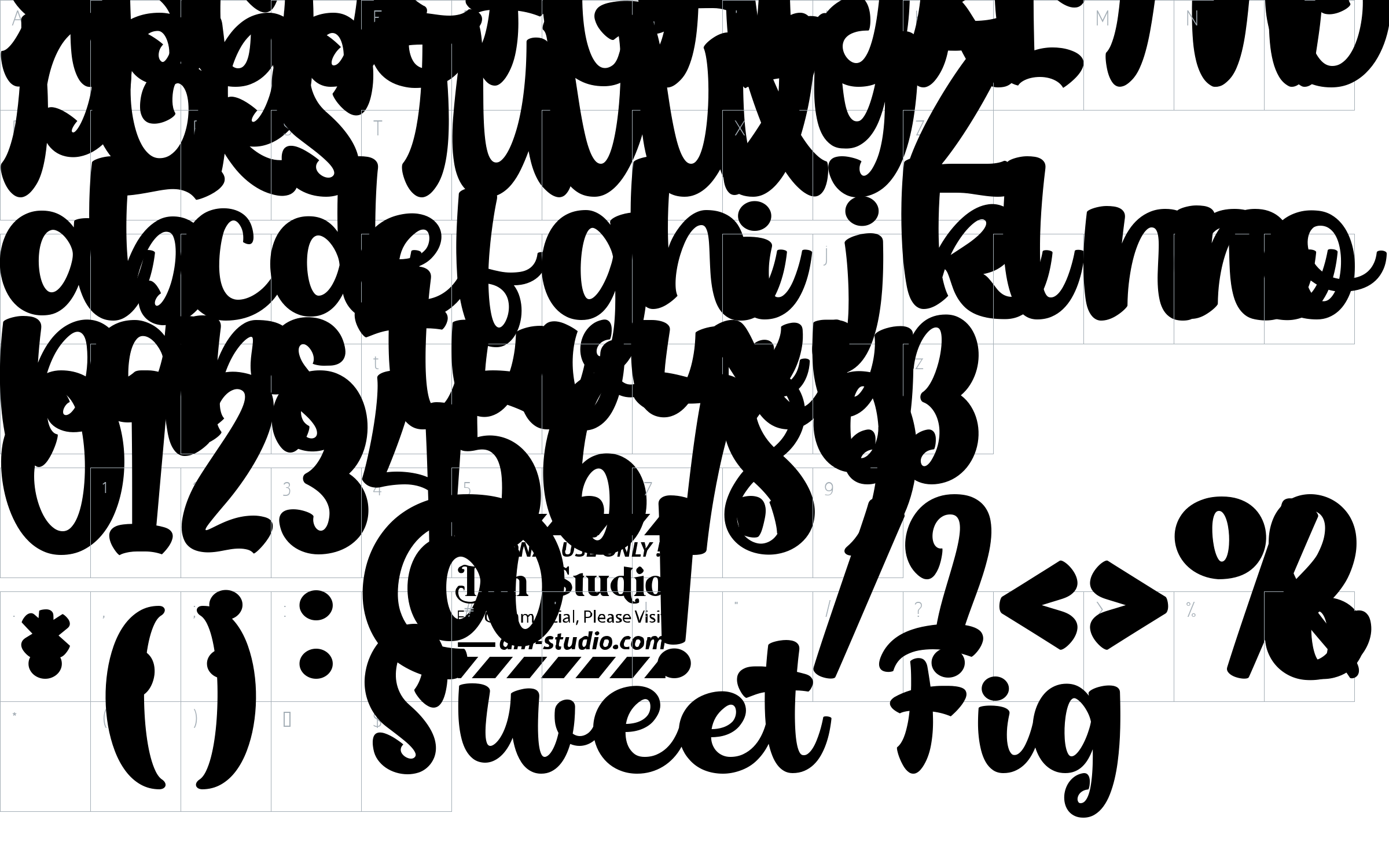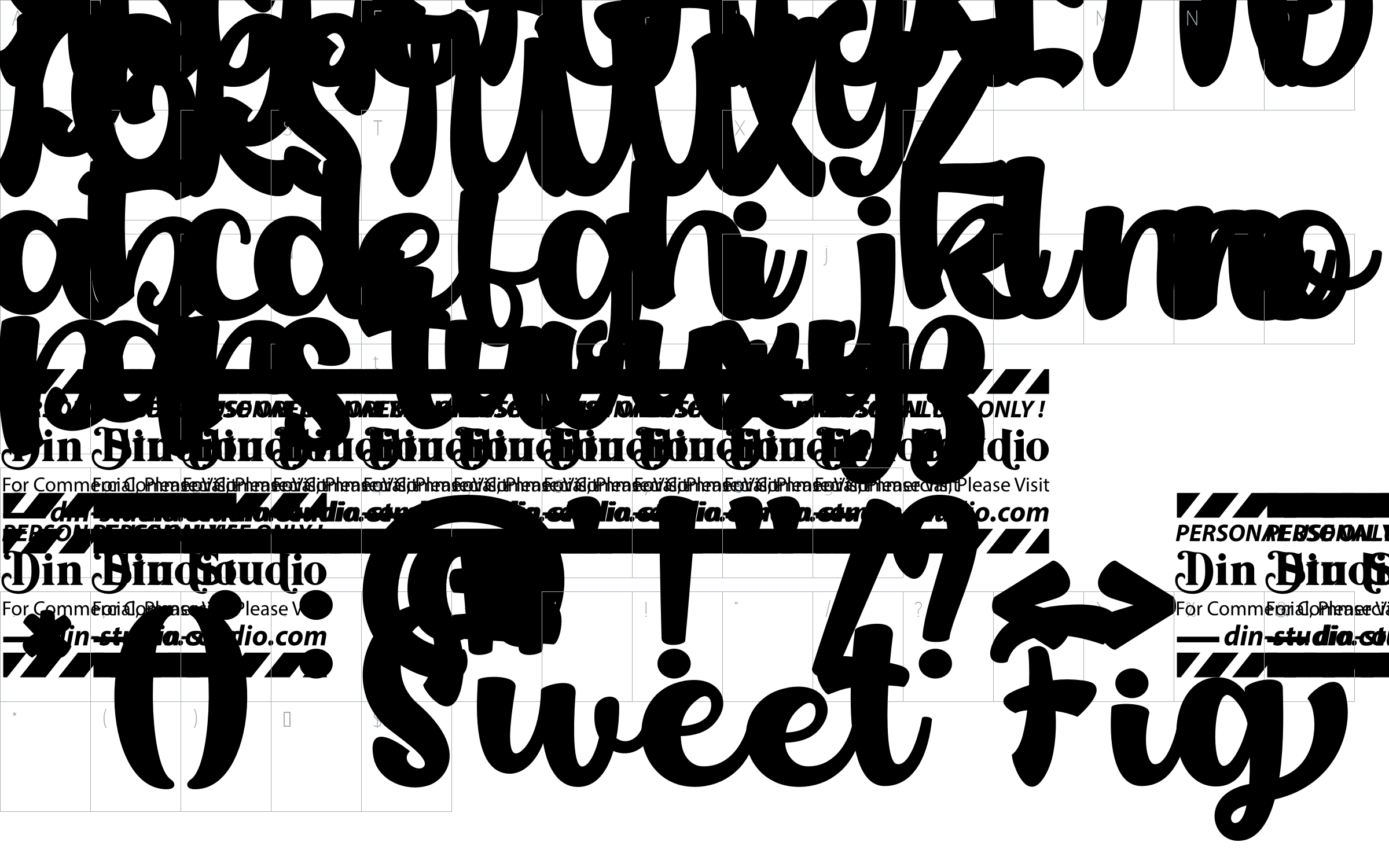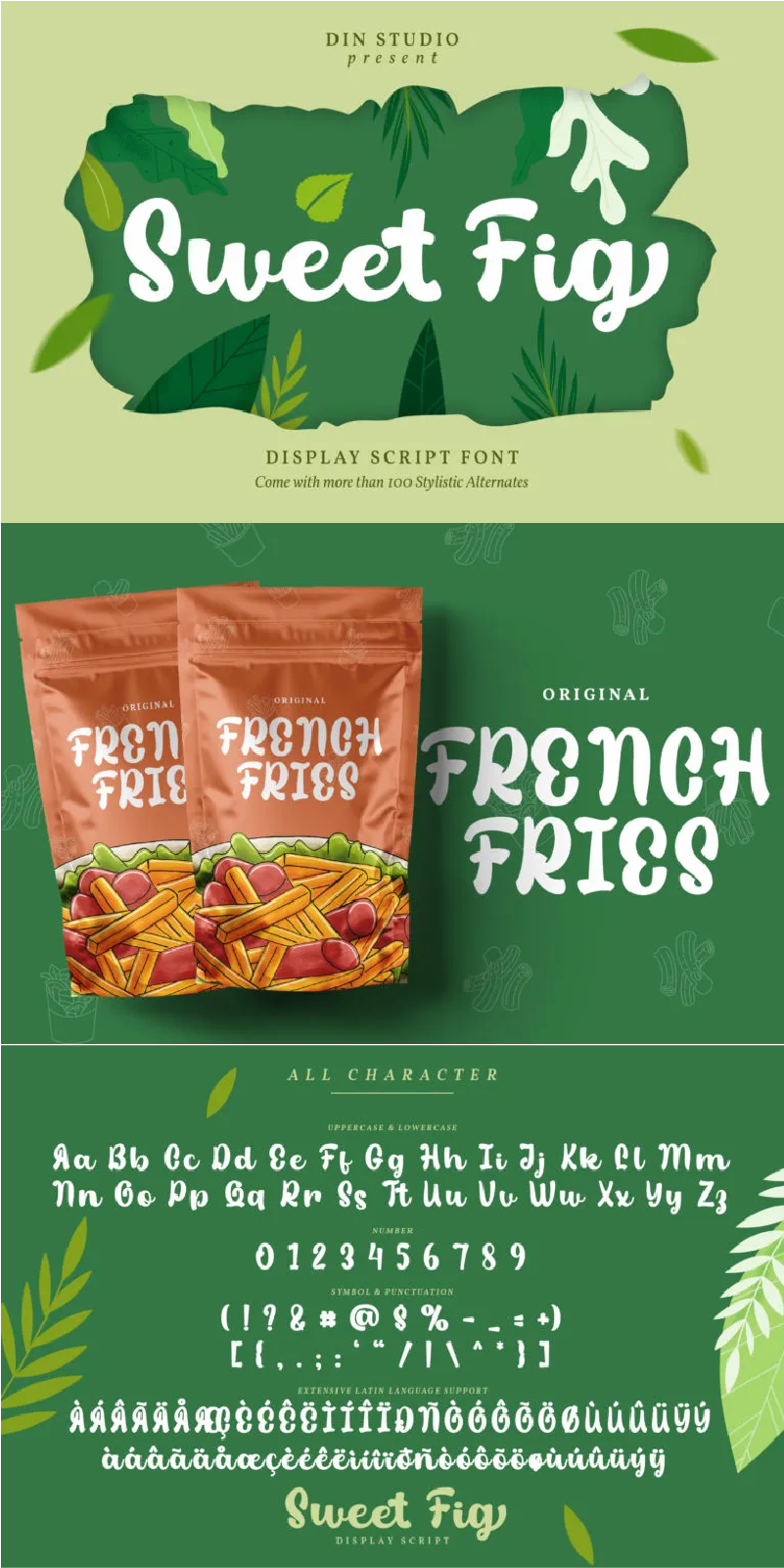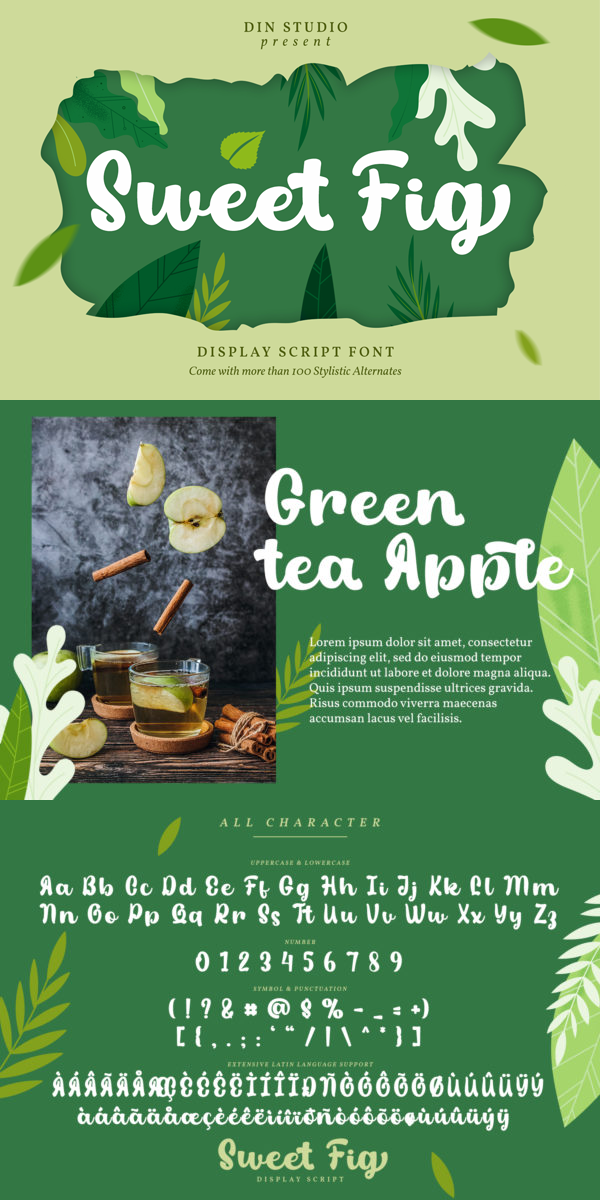
Sweet Fig Font
About Sweet Fig
Sweet Fig is a display script font. This font is suitable for any design like branding especially for food packaging, quotes, printing, etc. The design can elevate your design project. Sweet fig includes full set of hand lettered uppercase and lowercase letters, numerals, punctuation, and ligatures. See the previews above to get some inspiration on how you can use them. Enjoy the font!
Features :
-Stylistics Set
-Many Swashes